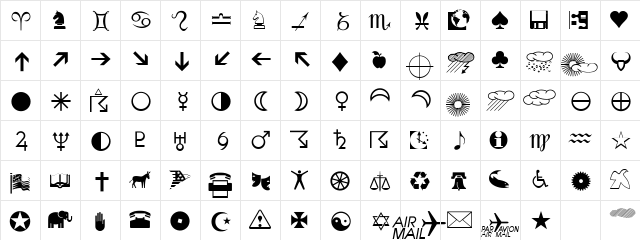
Design Context for PIXymbolsDingbats
PIXymbolsDingbats is a composed and adaptable typeface that performs quietly and consistently across a wide range of design contexts.